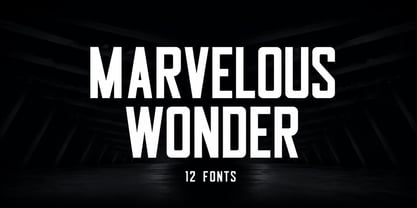
Marvelous Wonder
by Unitype Studio
The Marvelous Wonder Font Family was designed by Faizul Muna and published by Unitype Studio. Marvelous Wonder contains 12 styles and family package options. More about this family
Marvelous Wonder - Condensed Font Family
Marvelous Wonder Condensed Font Family is a modern condensed sans serif typeface designed to create strong visual impact while maintaining excellent readability. Built with sleek vertical proportions and carefully balanced spacing, this condensed font is perfect for designers who need powerful typography that fits beautifully into tight spaces.
With its compact structure and clean letterforms, Marvelous Wonder delivers a bold and professional appearance that works perfectly for branding, headlines, advertising, and editorial design. The narrow proportions allow more text to fit into smaller areas without sacrificing clarity, making it a highly practical and visually striking typeface.
Inspired by contemporary editorial typography and modern branding trends, Marvelous Wonder combines minimalism with a strong typographic personality. The tall letterforms and consistent rhythm give this condensed font family a distinctive look that stands out across both digital and print design.
Marvelous Wonder is designed to perform exceptionally well in many creative contexts, from website headers and UI design to magazine layouts, posters, and packaging. Its versatility allows designers to build strong typographic hierarchies, ensuring content remains clean, organized, and visually engaging.
With 12 versatile styles, Marvelous Wonder provides flexibility for creating elegant typography systems. Whether you need a light and subtle style or a bold and impactful headline font, this condensed typeface gives you the tools to craft modern and professional designs.
If you’re looking for a modern condensed font for branding, posters, logos, and editorial layouts, Marvelous Wonder is a powerful choice that combines style, readability, and versatility.
Key Features of Marvelous Wonder Condensed Font
Modern Condensed Sans Serif
A sleek condensed font designed for contemporary branding and editorial typography.
Perfect Headline Font
Tall letterforms create strong and impactful titles, headers, and posters.
Space-Saving Typography
Condensed structure allows more text in smaller layouts without losing readability.
Professional Branding Font
Ideal for logos, visual identities, and corporate branding systems.
Versatile Font Family
Includes multiple weights and italics for complete design flexibility.
Multilingual Support
Extended glyphs for international design projects.
Perfect For
Marvelous Wonder condensed font works beautifully for:
• Branding & Corporate Identity
• Logo Design & Visual Identity
• Posters & Advertising Design
• Editorial Layouts & Magazines
• Website Headers & UI Design
• Packaging & Product Labels
• Social Media Graphics
• Billboard & Large Display Typography
Additional Features
Why Choose Marvelous Wonder Condensed Font?
Marvelous Wonder is a powerful modern condensed font that helps designers create impactful typography with minimal space. Its elegant proportions, strong readability, and versatile styles make it an excellent choice for professional branding, advertising, and editorial design.
Whether you’re creating logos, posters, website headers, packaging, or social media graphics, Marvelous Wonder ensures your typography looks bold, clean, modern, and professional.
Designers: Faizul Muna
Foundry: Unitype Studio